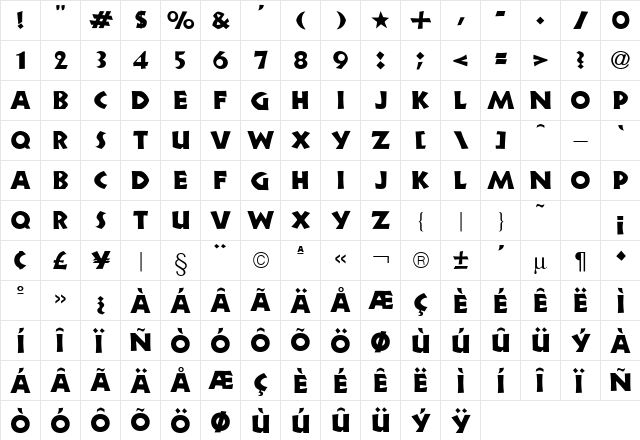
Newfoundland Regular
Design Context for Newfoundland Typeface
Newfoundland offers clean, dependable letterforms without strong stylistic allegiance, making it a practical choice for designers who need flexibility.
Pro Tip: Use Newfoundland in both headline and body roles to test its range before committing to a single application.